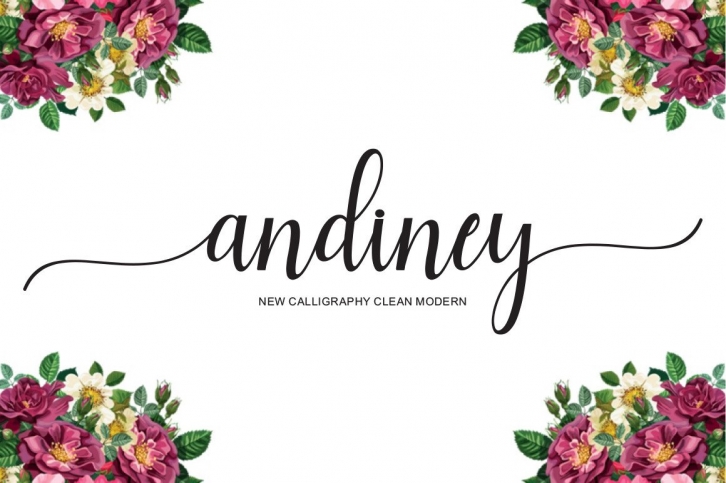
Andiney Script is a modern calligraphy font. It has a charming slim body that is quite straight and clean, made with care for logos, website headers, fashion designs, wedding card designs, and more.